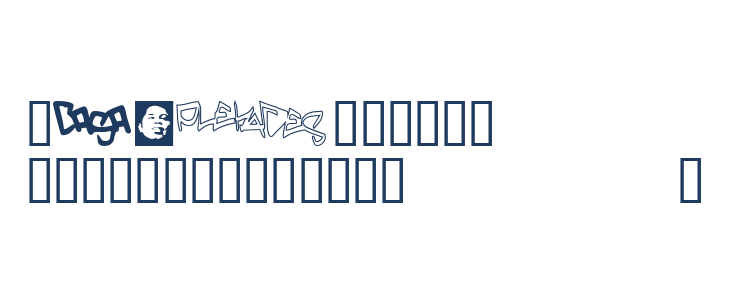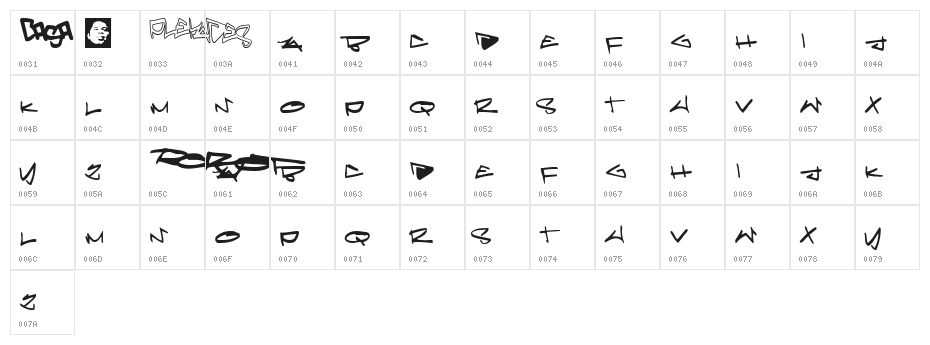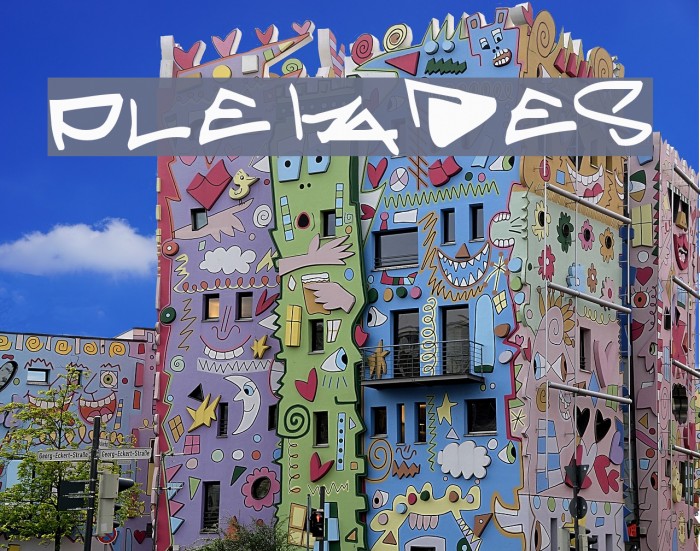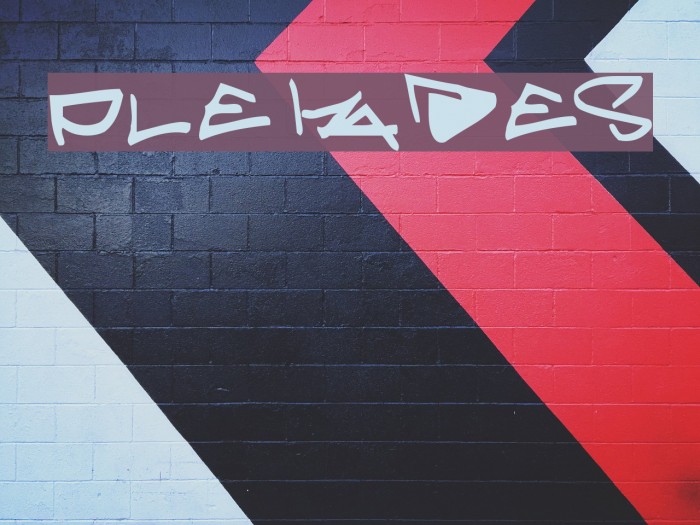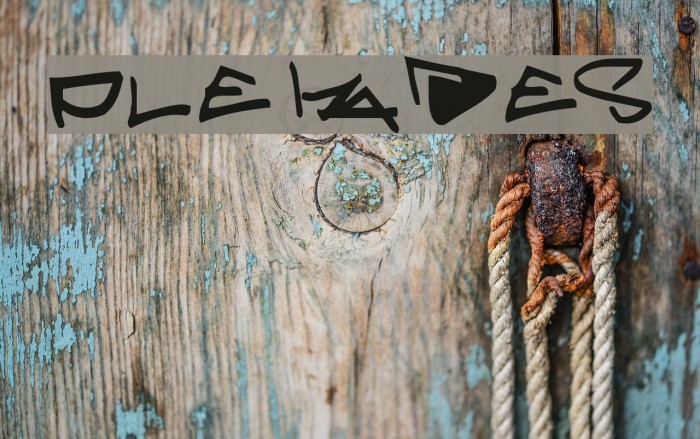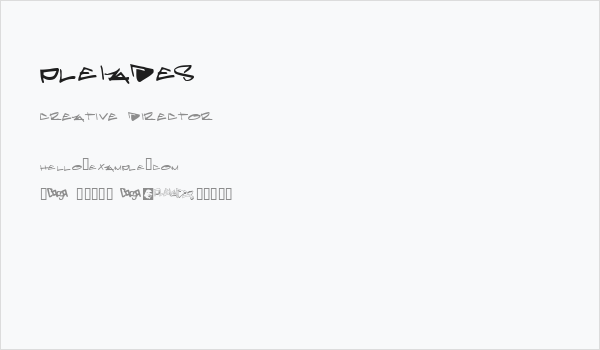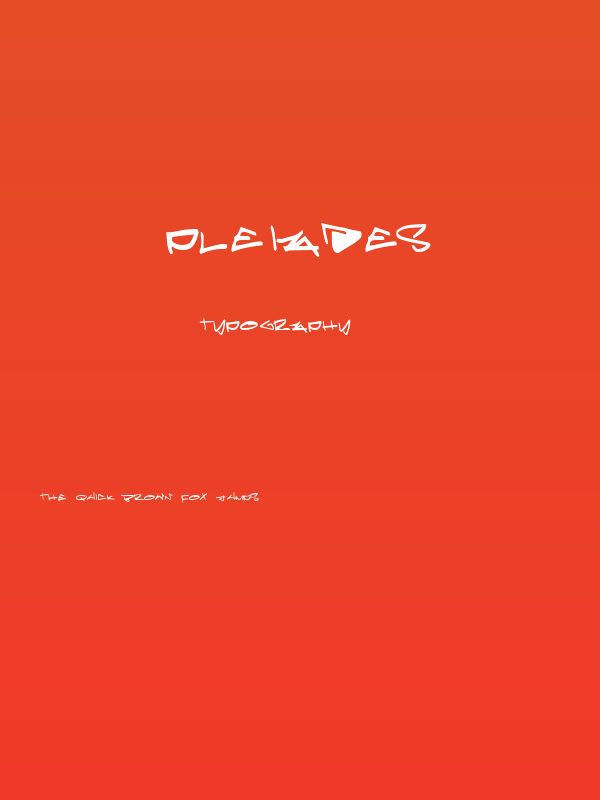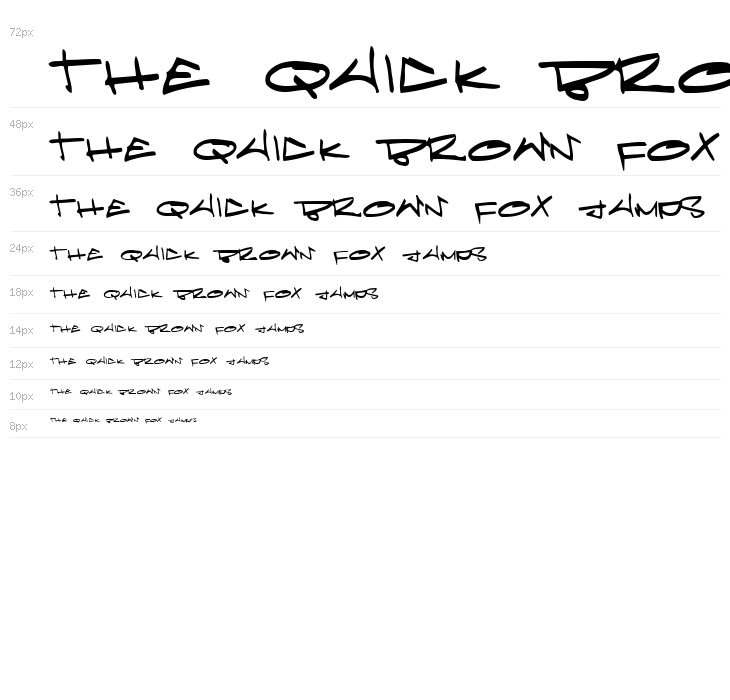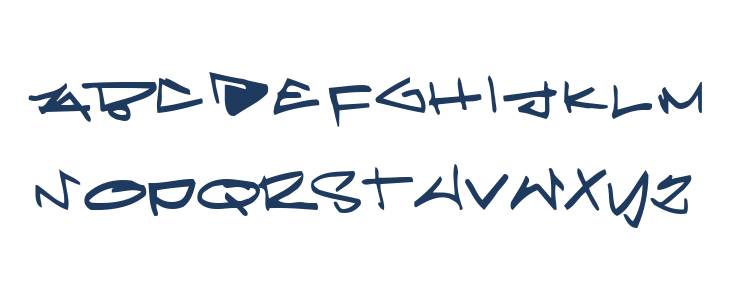
Pleiades Font
Pleiades Description
This font features a bold, graffiti-inspired style with sharp, angular lines and a dynamic, energetic appearance. The uppercase and lowercase letters maintain a consistent edgy aesthetic, characterized by irregular shapes and a sense of movement. The numbers and special characters follow the same design principles, making the font cohesive and visually striking. Its unique style is reminiscent of street art, with a rebellious and urban feel that stands out. The font's design is highly decorative, making it suitable for projects that require a bold statement.
Overall StyleUrban, Graffiti, Energetic
Proposed ProjectsIdeal for street art designs, urban-themed posters, music album covers, and edgy branding projects.